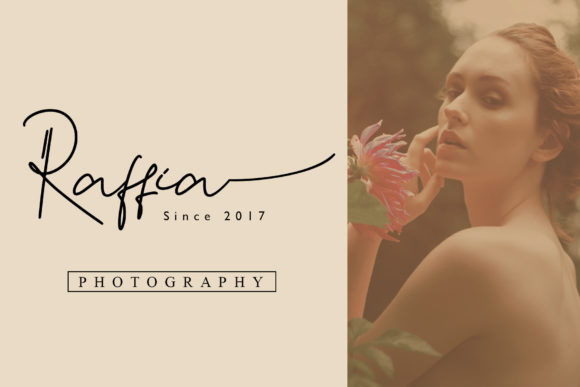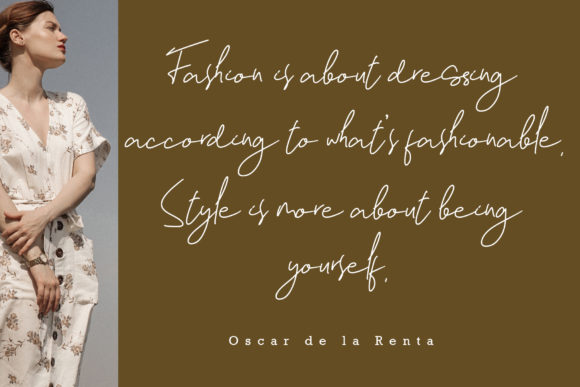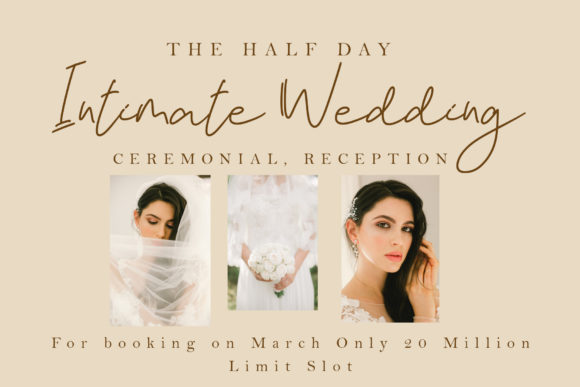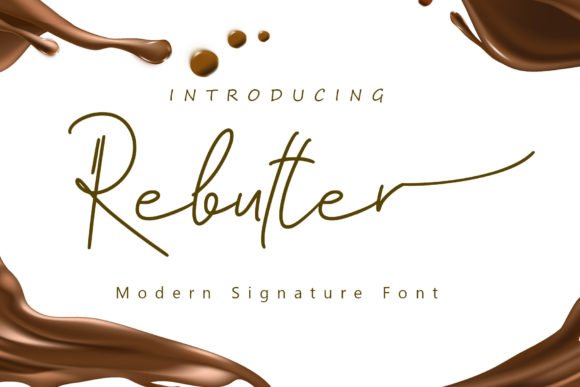
Introduction to Rebutter Font
Rebutter is a beautiful and fashionable handwritten font with a unique feel and a stunning impact.
It will add a luxury spark to any design project that you wish to create This font is PUA encoded which means you can access all of the glyphs and swashes with ease.
Key Features of Rebutter Font
Why Choose Rebutter Font?
Rebutter Font offers exceptional quality and versatility, making it a valuable addition to your design toolkit. Whether you’re creating for personal projects or commercial use, Rebutter Font delivers professional results.